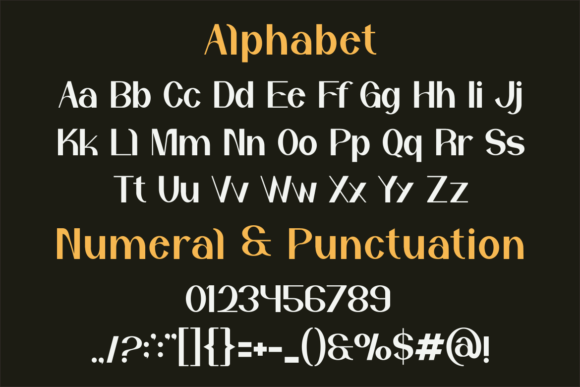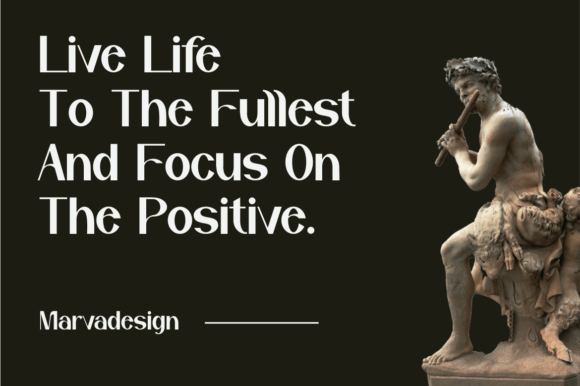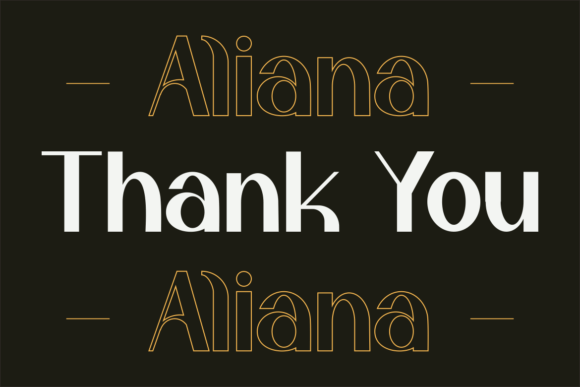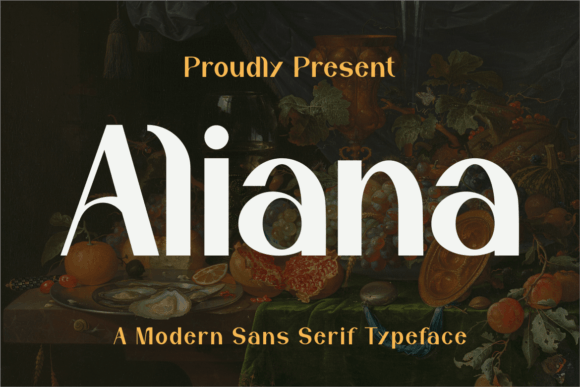
Introducing Aliana Font: The Modern Sans Serif for Creative Minds
Are you on the hunt for a font that exudes modernity and style? Look no further than Aliana Font, a stunning sans serif typeface that’s taking the design world by storm. With its incredibly versatile style, Aliana is perfect for creating a wide range of projects, from gorgeous wedding invitations to beautiful stationary art, eye-catching social media posts, and beyond.
What Makes Aliana Font So Special?
Aliana Font is a masterclass in modern sans serif design. Its clean lines, elegant curves, and precision-crafted letterforms make it a joy to use and a delight to behold. Whether you’re a seasoned designer or a crafty DIY enthusiast, Aliana is sure to capture your heart with its:
- Versatile style: Aliana’s adaptable design makes it perfect for use in a variety of contexts, from formal events to casual social media posts.
- Modern aesthetic: Aliana’s sleek, contemporary look is sure to elevate your designs and give them a fresh, on-trend feel.
- Ease of use: With its clear, legible letterforms and straightforward design, Aliana is easy to use and pairs perfectly with a wide range of other fonts.
Endless Creative Possibilities with Aliana Font
So, what can you create with Aliana Font? The possibilities are endless! Here are just a few ideas to get you started:
- Wedding invitations: Create stunning, one-of-a-kind wedding invites that set the tone for a beautiful and unforgettable celebration.
- Stationary art: Use Aliana to craft gorgeous greeting cards, art prints, and other paper crafts that showcase your creativity and style.
- Social media posts: Elevate your social media game with eye-catching posts that feature Aliana’s modern, stylish aesthetic.
- Branding and marketing materials: Use Aliana to create professional, cohesive branding that helps your business stand out from the crowd.
Tips and Tricks for Getting the Most Out of Aliana Font
To help you get the most out of Aliana Font, here are a few expert tips and tricks:
- Experiment with different colors: Aliana looks great in a wide range of colors, so don’t be afraid to try out different hues and combinations to find the perfect look for your project.
- Pair it with other fonts: Aliana pairs beautifully with a variety of other fonts, so feel free to get creative and experiment with different combinations to find the perfect match.
- Play with layout and design: Aliana’s versatility means it can be used in a wide range of layouts and designs, so don’t be afraid to try out different arrangements and see what works best for your project.
In conclusion, Aliana Font is a modern and stylish sans serif typeface that’s perfect for designers and crafters looking to add a touch of elegance and sophistication to their projects. With its versatile style, modern aesthetic, and ease of use, Aliana is sure to become a go-to font in your collection. So why wait? Fall in love with Aliana Font today and start creating gorgeous wedding invitations, beautiful stationary art, eye-catching social media posts, and more!
Get Ready to Fall in Love with Aliana Font